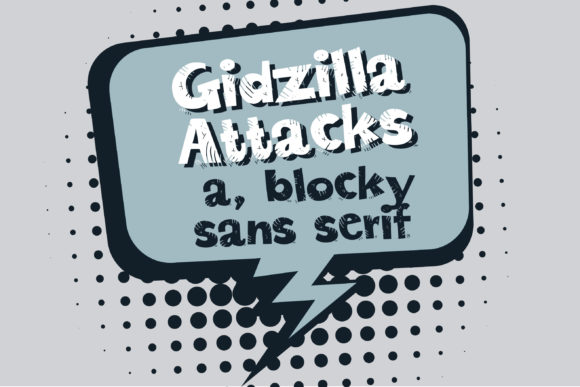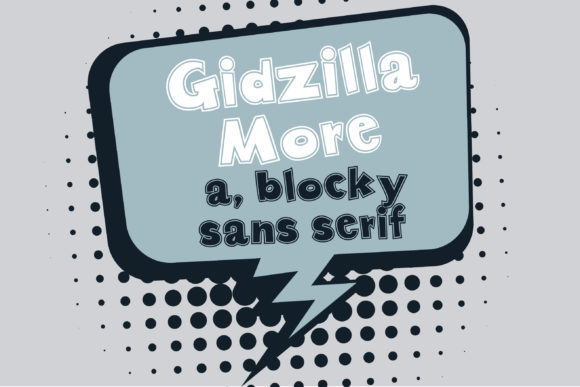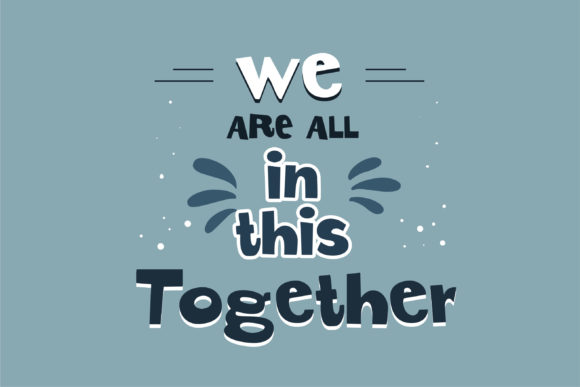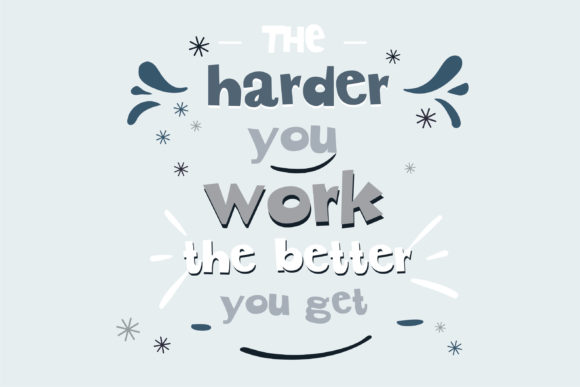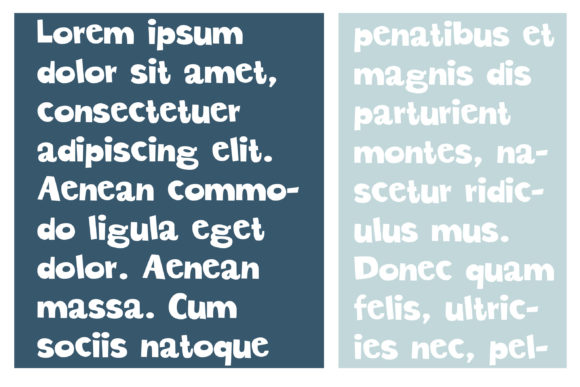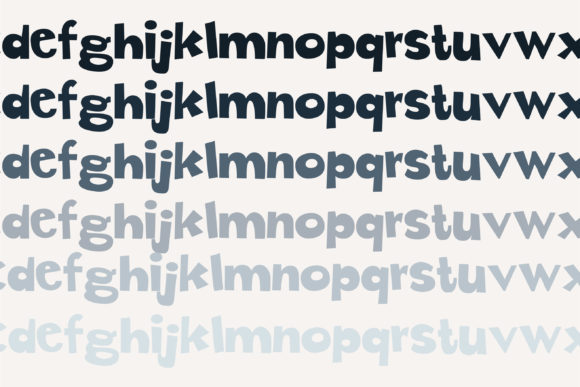
Gidzilla Font: The Ultimate Blocky Typeface for Designers and Crafters
Are you tired of using the same old fonts in your design projects? Look no further than Gidzilla Font, a heavy sans serif typeface that’s sure to add a touch of edginess to your work. With its blocky, rugged design, Gidzilla Font is perfect for designers and crafters who want to add some personality to their projects.
A Font with Character
One of the standout features of Gidzilla Font is its unique character. This blocky typeface is a heavy sans serif that’s designed to make a statement. Its bold, rugged design is perfect for headlines, titles, and other applications where you want to grab the reader’s attention. But what really sets Gidzilla Font apart is its variety of styles.
Scratches and Scars: Adding Life to Your Projects
One of the styles included with Gidzilla Font is a version with scratches and scars. This adds a level of texture and depth to your designs, giving them a more organic, lived-in feel. Whether you’re designing a logo, a poster, or a website, the scratched and scarred version of Gidzilla Font is sure to add some visual interest. And with its heavy, bold design, it’s perfect for making a statement.
Outlined Version: A Sporty Look
But what if you want a more sporty, modern look? That’s where the outlined version of Gidzilla Font comes in. This version of the font features a clean, outlined design that’s perfect for creating a sleek, modern aesthetic. Whether you’re designing a logo, a banner, or a social media graphic, the outlined version of Gidzilla Font is sure to be a hit.
Gidzilla Font is perfect for designers and crafters who want to add some personality to their projects. Its bold, rugged design makes it perfect for a wide range of applications, from logos and posters to websites and social media graphics. And with its variety of styles, you’re sure to find the perfect look for your project.
Key Features of Gidzilla Font
• Heavy sans serif typeface with a blocky, rugged design
• Includes a version with scratches and scars for added texture and depth
• Includes an outlined version for a sleek, modern look
• Perfect for designers and crafters who want to add some personality to their projects
• Great for a wide range of applications, including logos, posters, websites, and social media graphics
Tips for Using Gidzilla Font
Here are a few tips for getting the most out of Gidzilla Font:
• Use the scratched and scarred version to add some texture and depth to your designs
• Use the outlined version to create a sleek, modern aesthetic
• Experiment with different colors and backgrounds to really make your text pop
• Don’t be afraid to mix and match different styles to create a unique look
In conclusion, Gidzilla Font is a versatile and powerful typeface that’s perfect for designers and crafters who want to add some personality to their projects. With its bold, rugged design and variety of styles, it’s sure to be a hit with anyone looking to make a statement. So why wait? Download Gidzilla Font today and start creating some amazing designs!